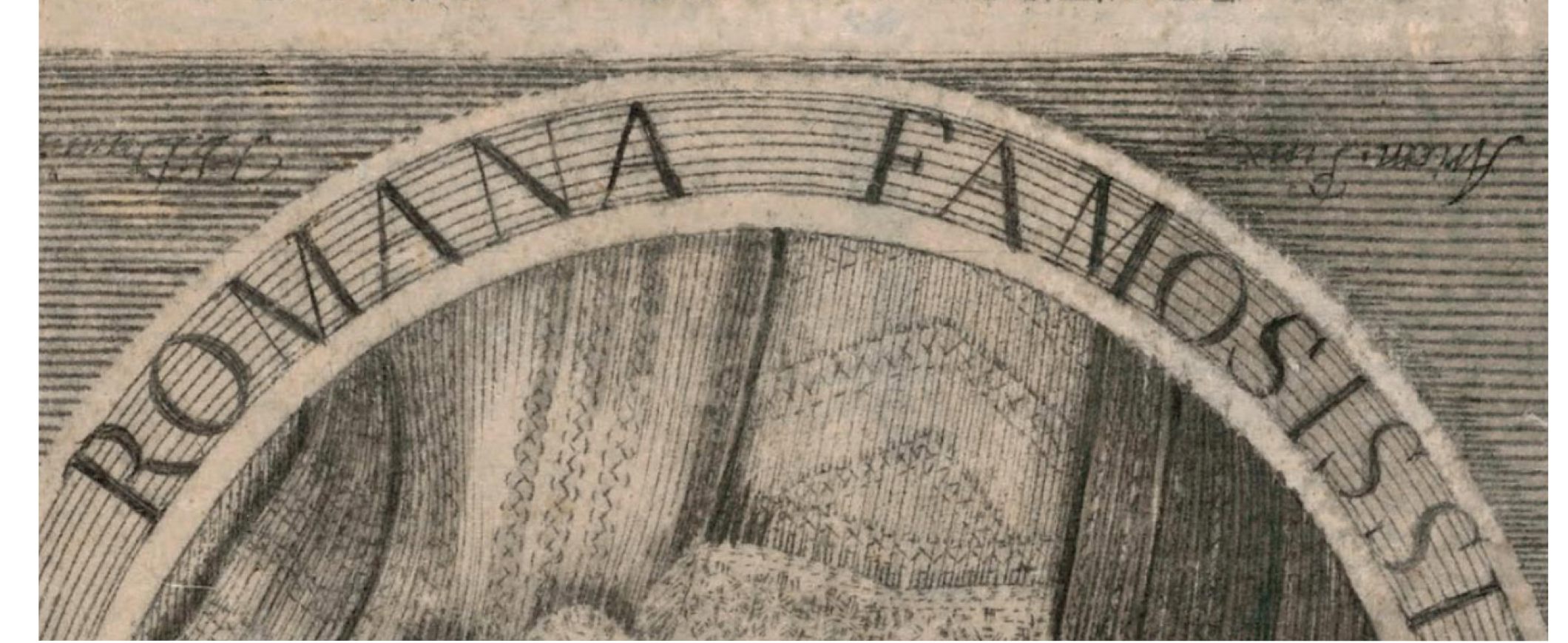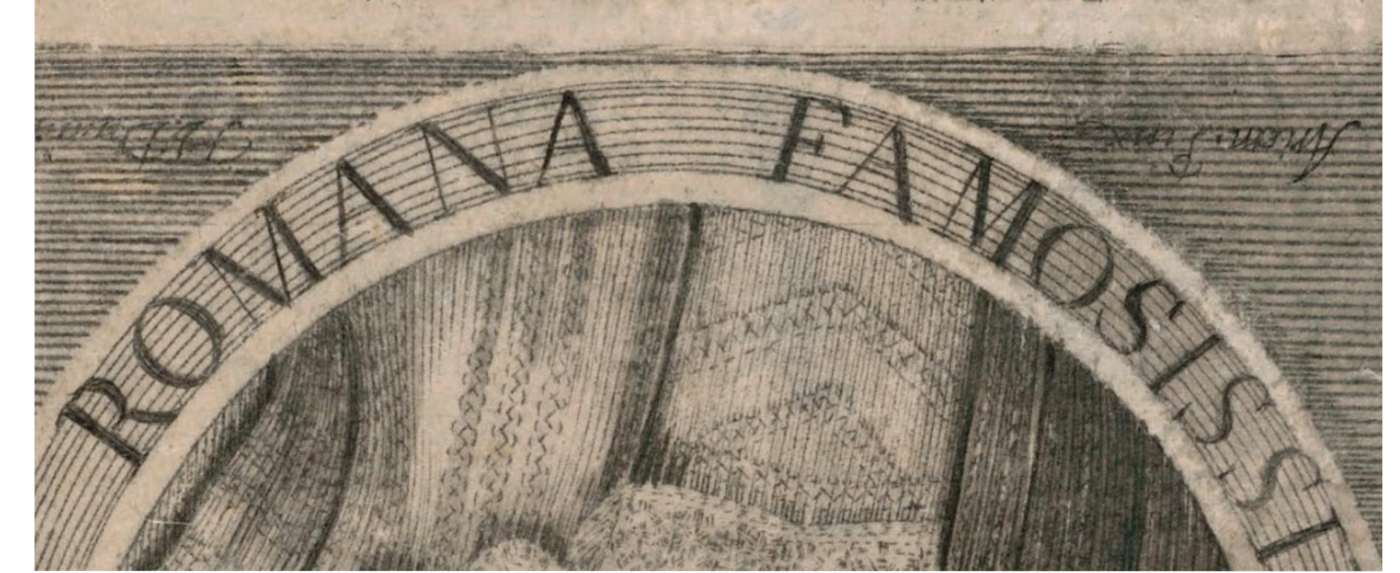
Roman Handrawn Type
I'm trying to identify a handrawn style typeface that feels as similar as possible to the engraving example here.
Needs to feel like these letterforms but the handrawn element is essential.
It doesn't need to have the rules behind and ideally do'nt want the letterforms to be fully solid ie look a bit shaded like this.
I think you should look into the various IM FELL fonts, like IM FELL Great Primer. Since fonts are vectors, you would have to try and replicate the washed out/shaded look with some kind of texture overlay/blending mode trickery in your preferred graphics application.